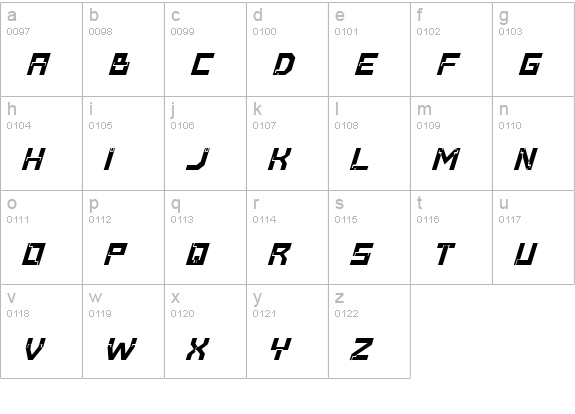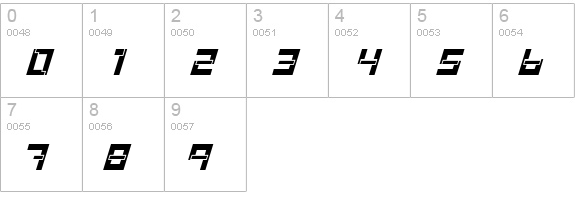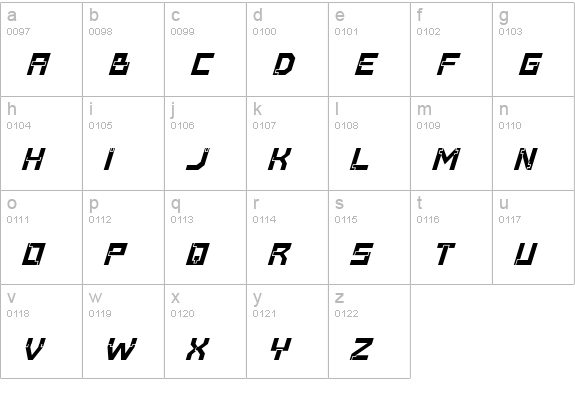
Baumarkt BoldItalic Font Details
Introducing Baumarkt BoldItalic font, a sleek and modern typeface that exudes confidence and sophistication. This unique font features bold and italic styles that blend seamlessly to create a striking visual impact. Perfect for adding a touch of elegance to your designs, Baumarkt BoldItalic is versatile and can be used for a wide range of projects. The best part? This stunning font is available for free download at FontsMarket.com. Whether you're working on a website, branding materials, or any other design project, Baumarkt BoldItalic is sure to make a statement. Don't miss out on the opportunity to elevate your designs with this eye-catching font. Download it now and let your creativity shine!